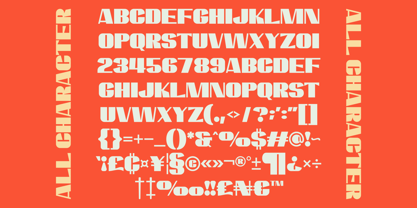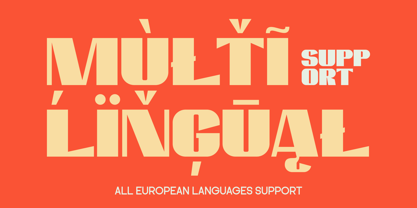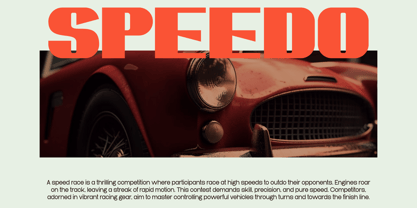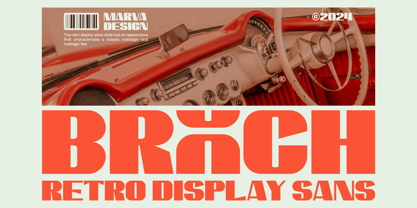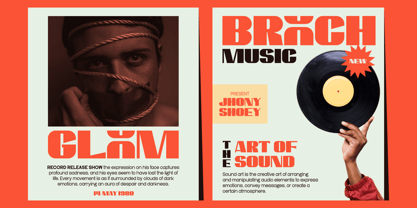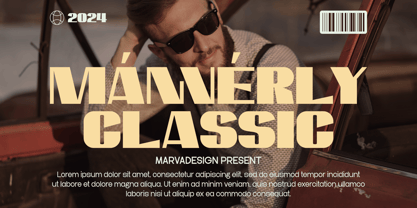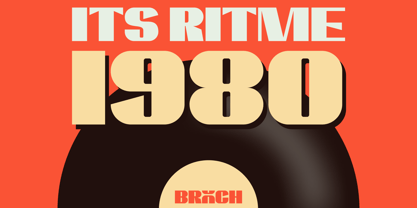
Brooch
The Brooch Font Family was designed by Febrie Setiawan and published by Marvadesign. Brooch contains 1 styles. More about this family
Introducing our new product Brooch Font – a Retro Display Sans Serif font that brings a bold vintage character with a modern edge. Designed with strong geometric shapes and distinctive letterforms, Brooch delivers a powerful visual impact that instantly captures attention. Its unique cuts and stylized curves evoke a nostalgic retro feel while maintaining a clean and contemporary structure.